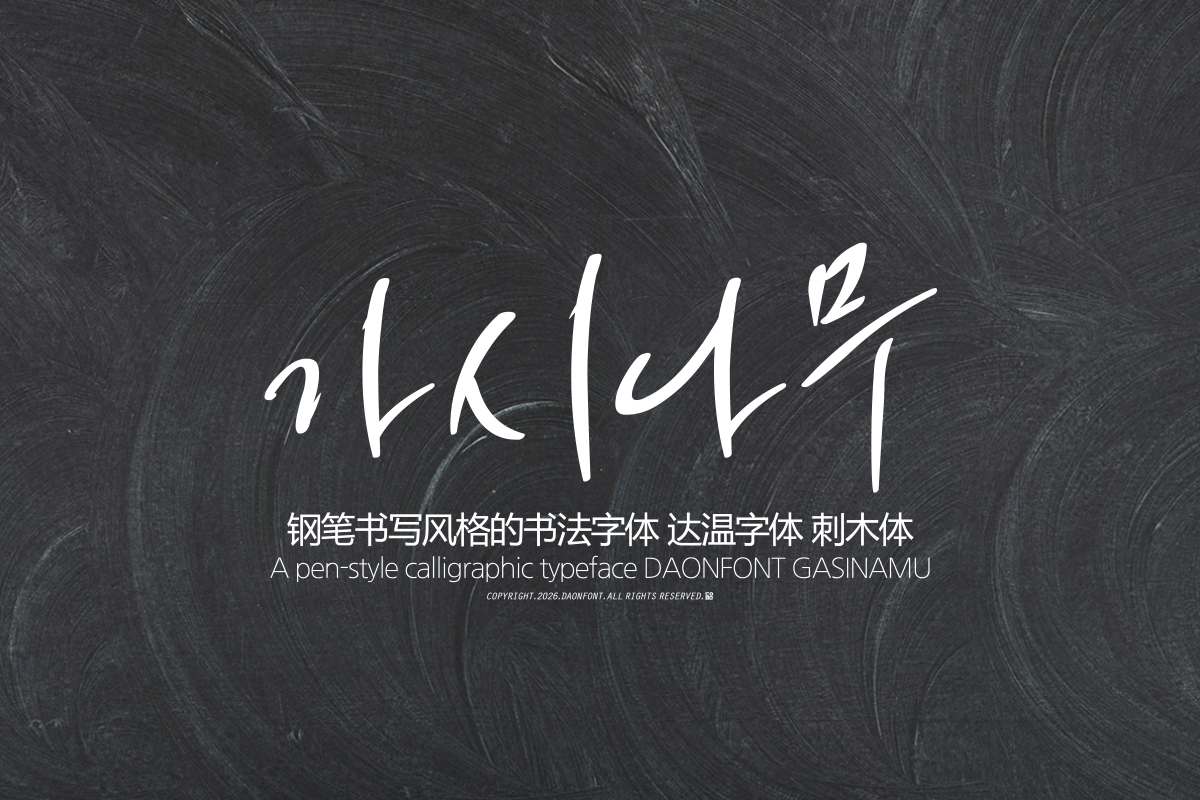
DAON GASINAMU(B)
'GASINAMU' is a calligraphy-style Korean typeface distinguished by brushstrokes that resemble penmanship and distinctive stroke flow. The free rhythm and touch characteristic of penmanship blend together to convey an emotional atmosphere. Furthermore, while preserving the unique character and expressiveness of the Gasinamu typeface, the letter structure has been refined for stability, enhancing its overall quality to make it suitable for use in various design projects.